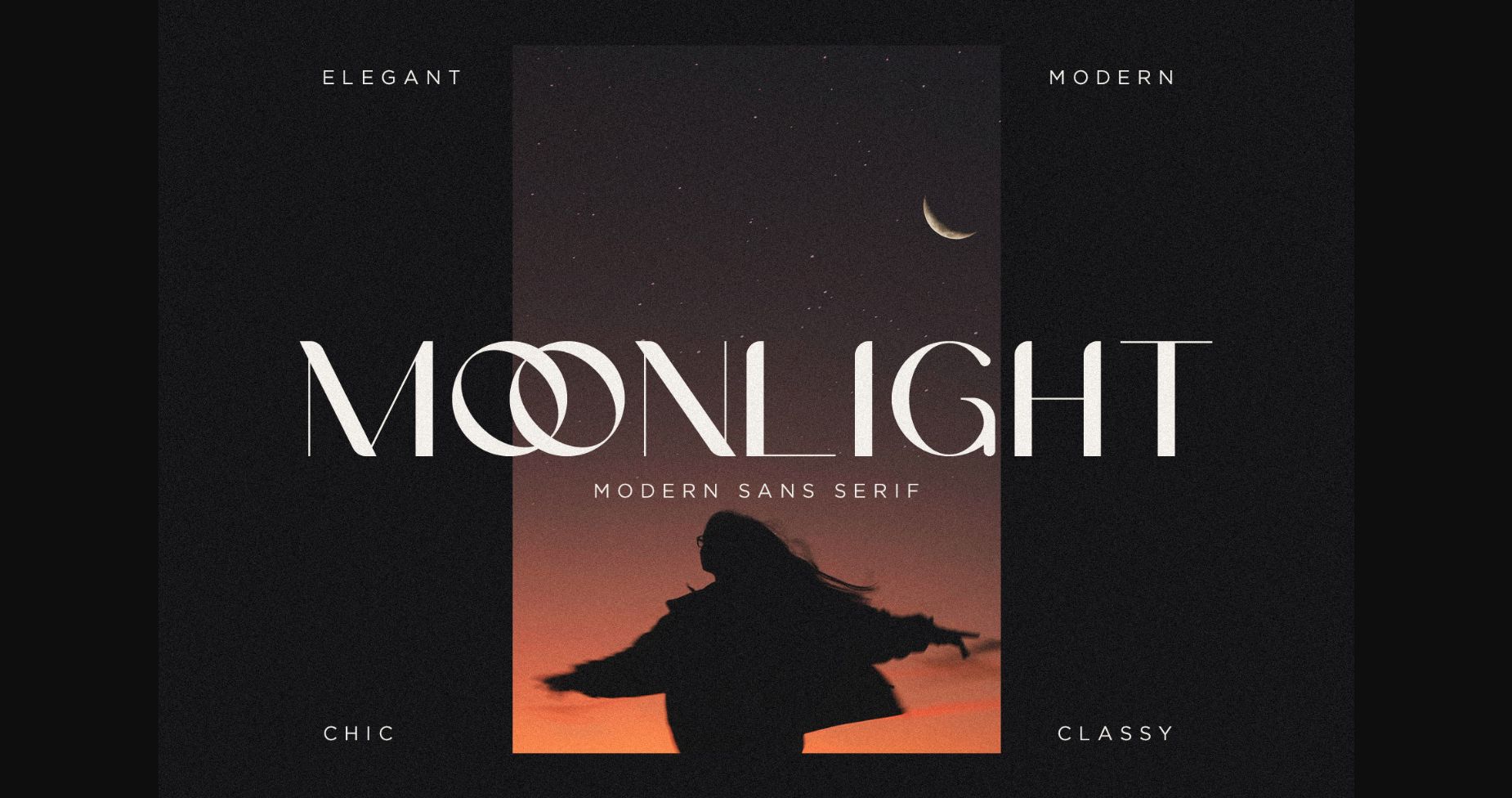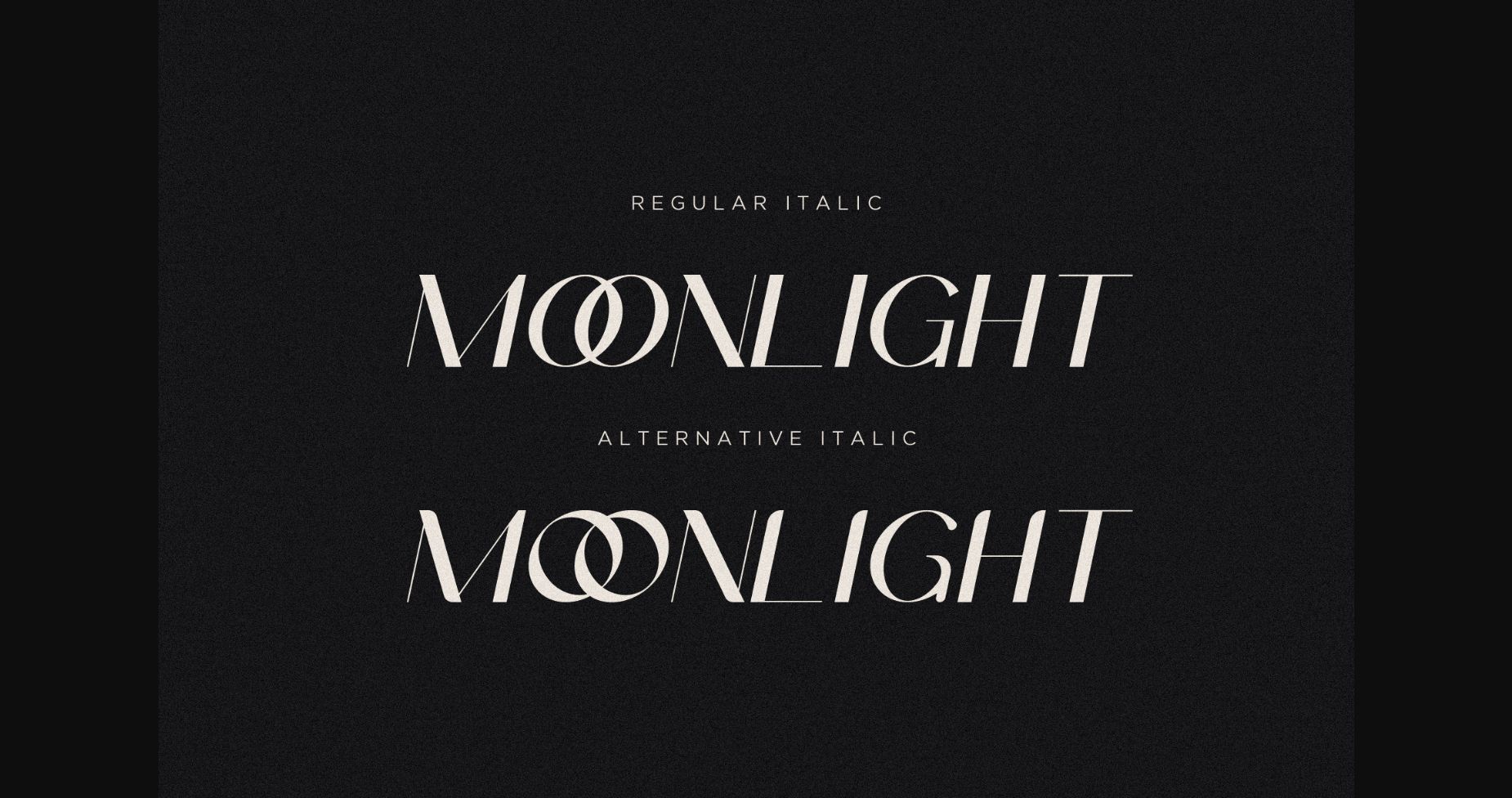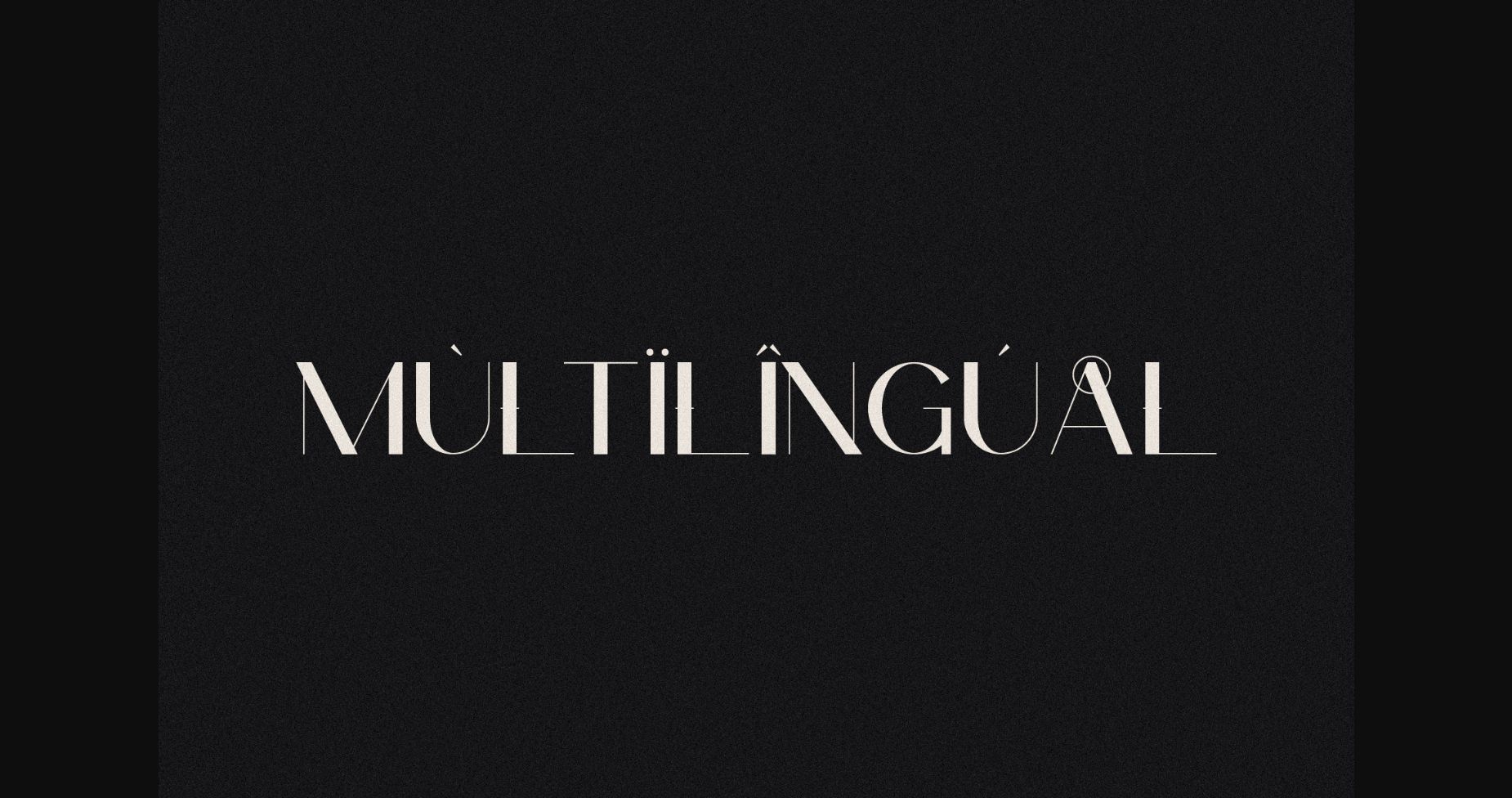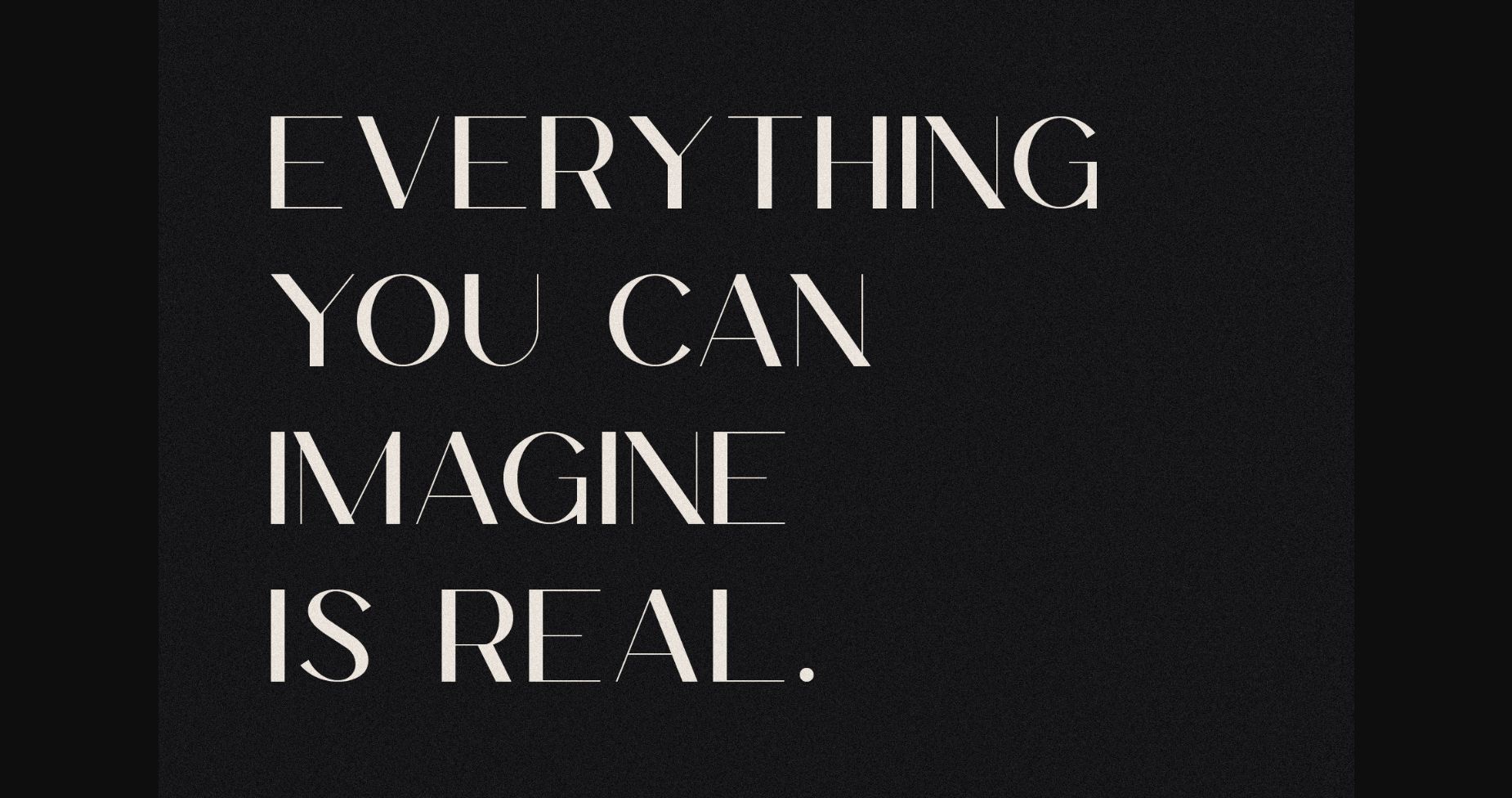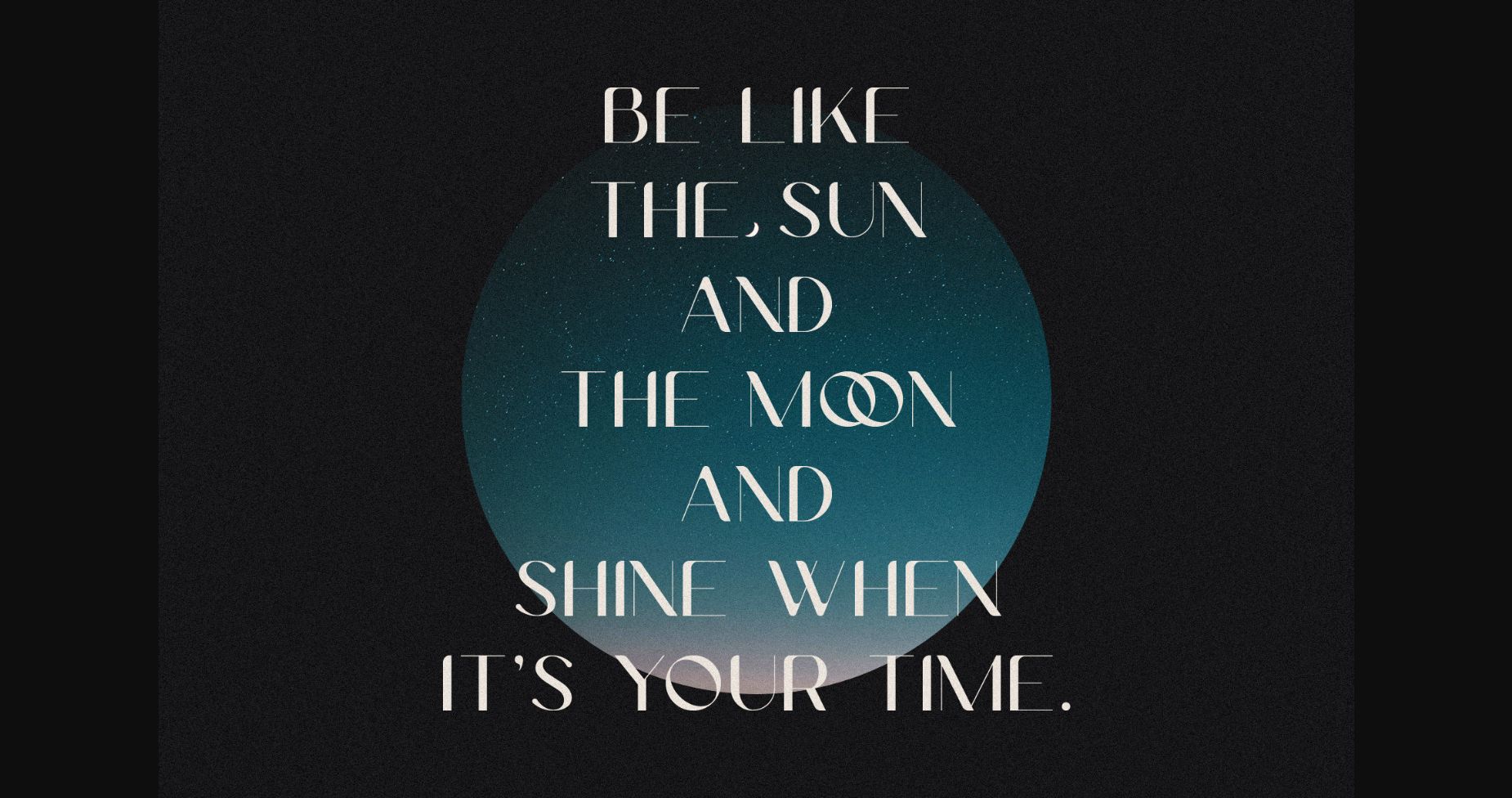
About Moonlight Font
Moonlight is an elegant, modern, chic, and classy font. Moonlight has a simple and unique style with standard ligatures, and supports multilingual languages. Moonlight includes regular and alternative versions.